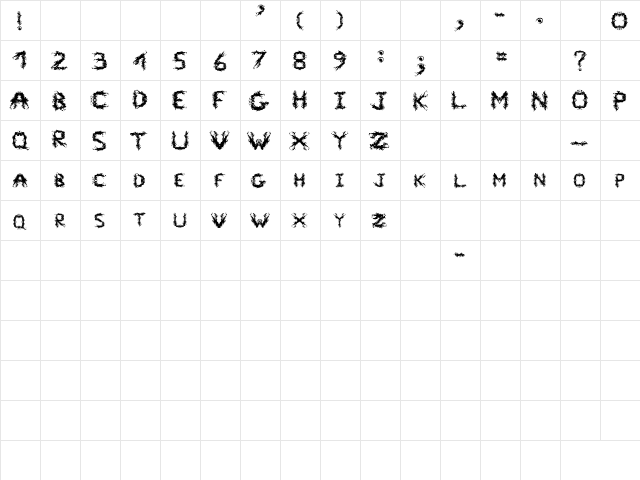
Fire Dusk - Grunge Regular
Design Context for Fire Dusk - Grunge Typeface
Fire Dusk - Grunge trades polish for personality, using distressed and eroded forms to bring grit and attitude to creative work.
A strong fit for alternative music projects, graffiti-adjacent design, and anything that deliberately resists polish.
Pro Tip: Use Fire Dusk - Grunge at larger sizes where the texture and irregularity of each letterform can be clearly seen — it loses its character at small sizes.